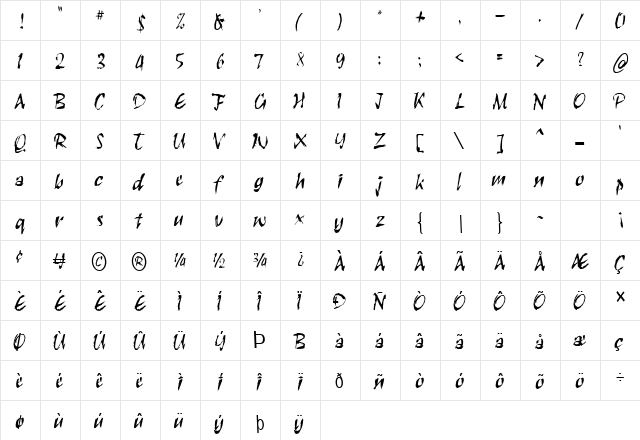
Scratch-Condensed Normal
Design Context for Scratch-Condensed Typeface
Scratch-Condensed is a composed and adaptable typeface that performs quietly and consistently across a wide range of design contexts. The condensed width makes it efficient for tight spaces without sacrificing legibility.